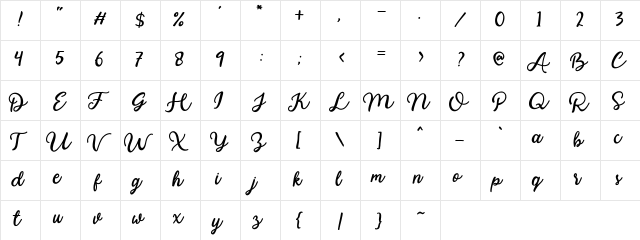
Modesta Script
| Style | Script |
| Foundry | Letterhend Studio |
| Designer | Letterhend Studio |
Design Context for Modesta Typeface
Modesta brings a calligraphic fluidity to the page — its connecting strokes and expressive curves give it an unmistakably human quality.
Font Pairing: Combine Modesta with a simple geometric sans for maximum contrast — the tension between flowing curves and clean structure is a classic typographic pairing.
Pro Tip: Use Modesta for short runs of text — names, titles, or taglines. Extended body copy in script faces tires the eye quickly.